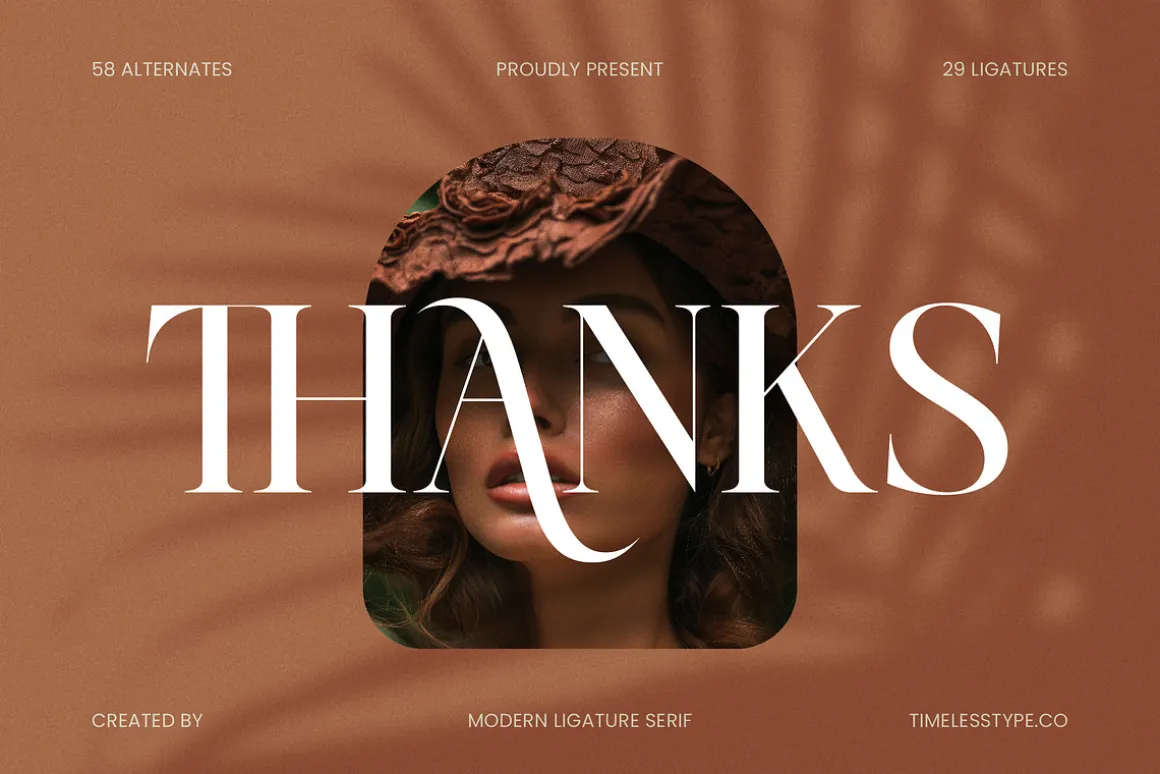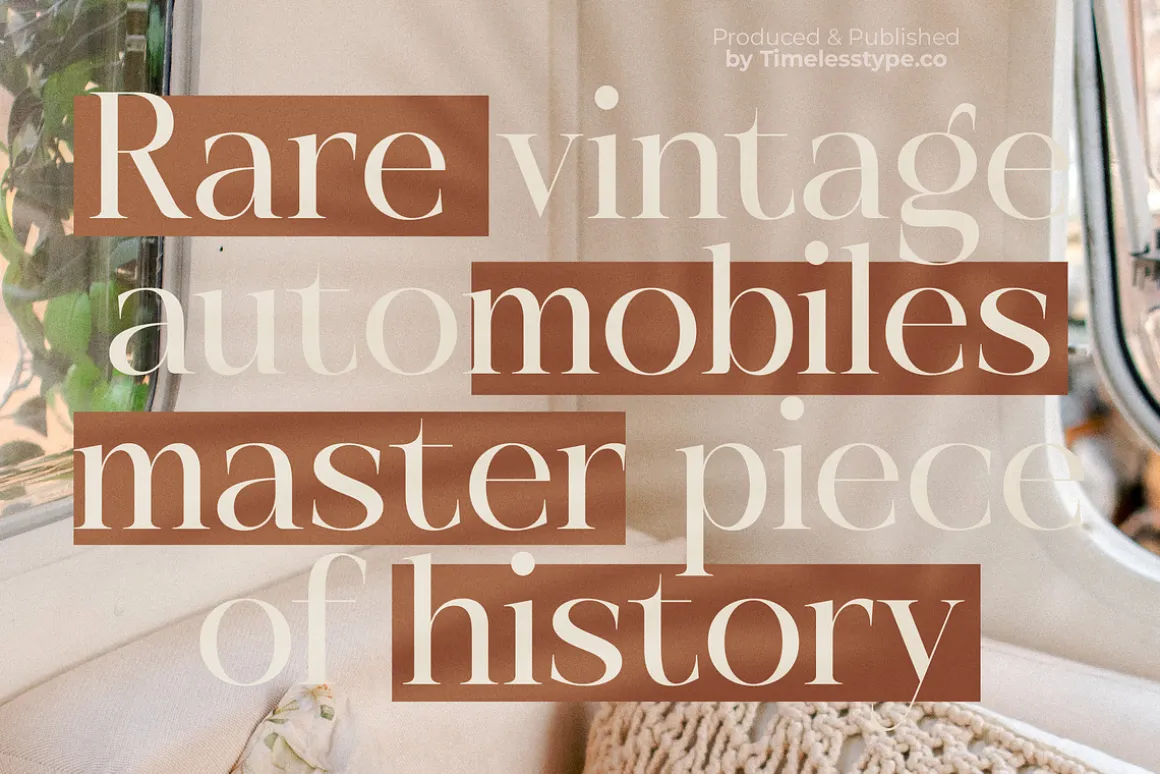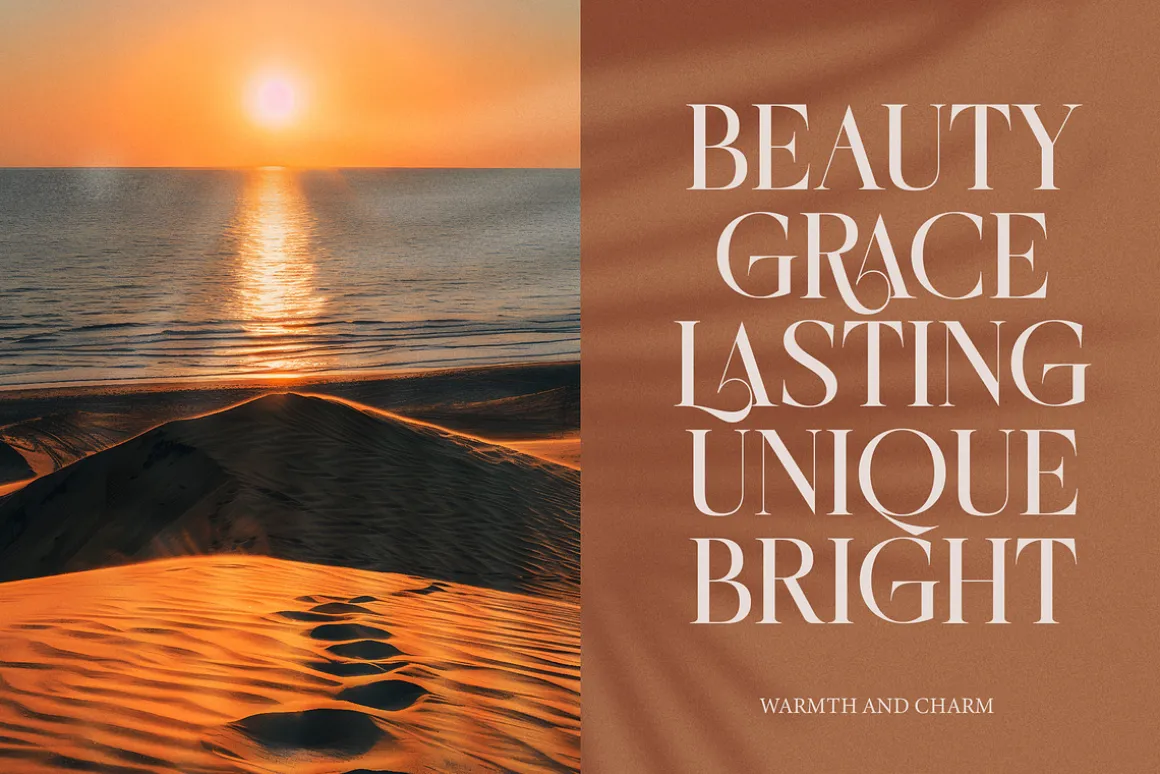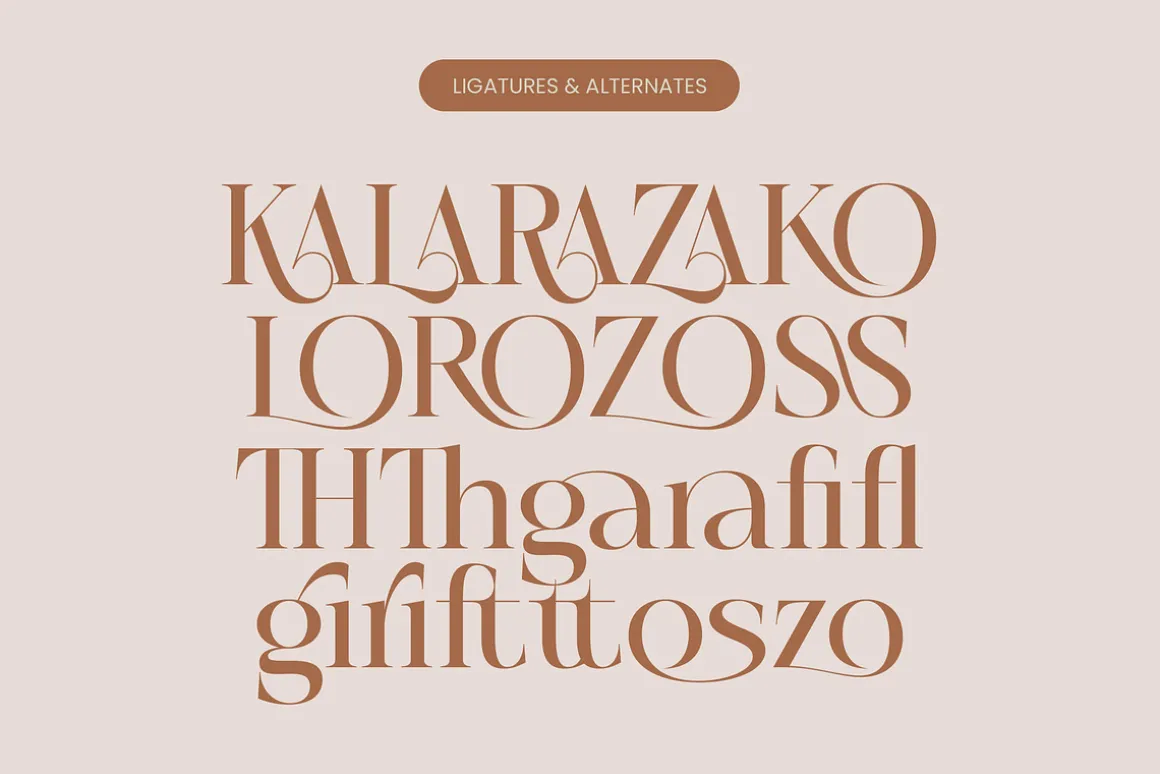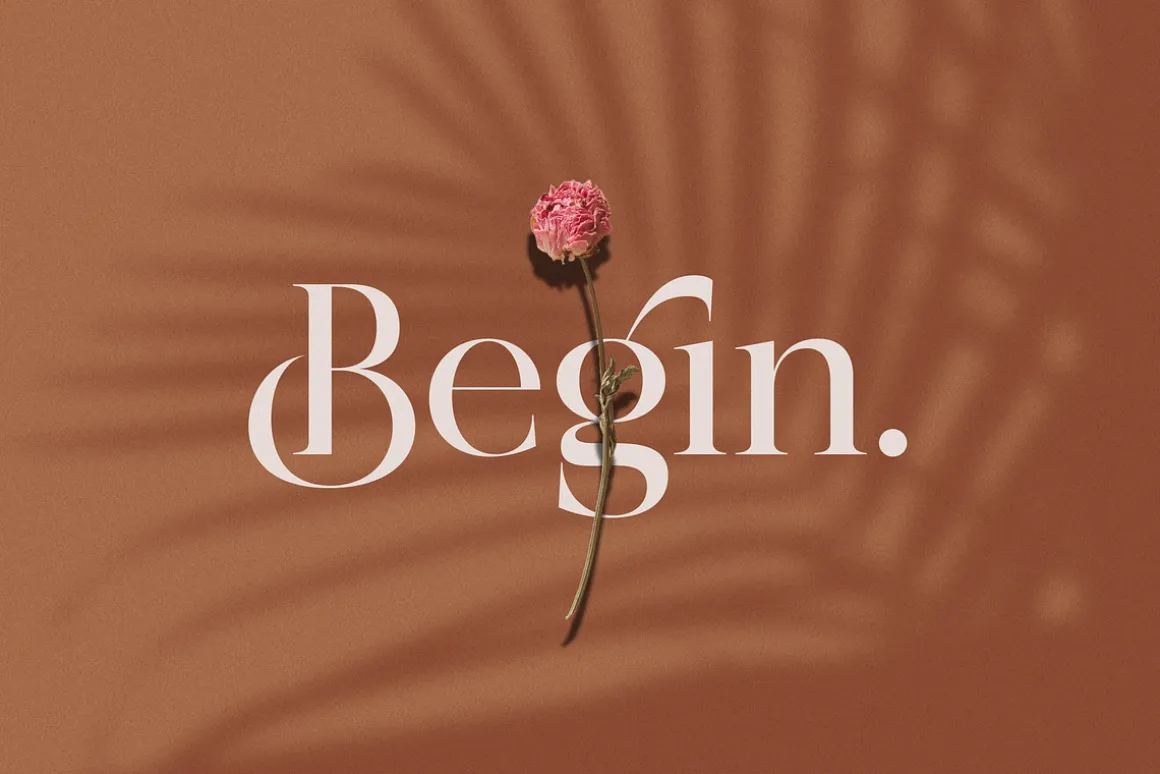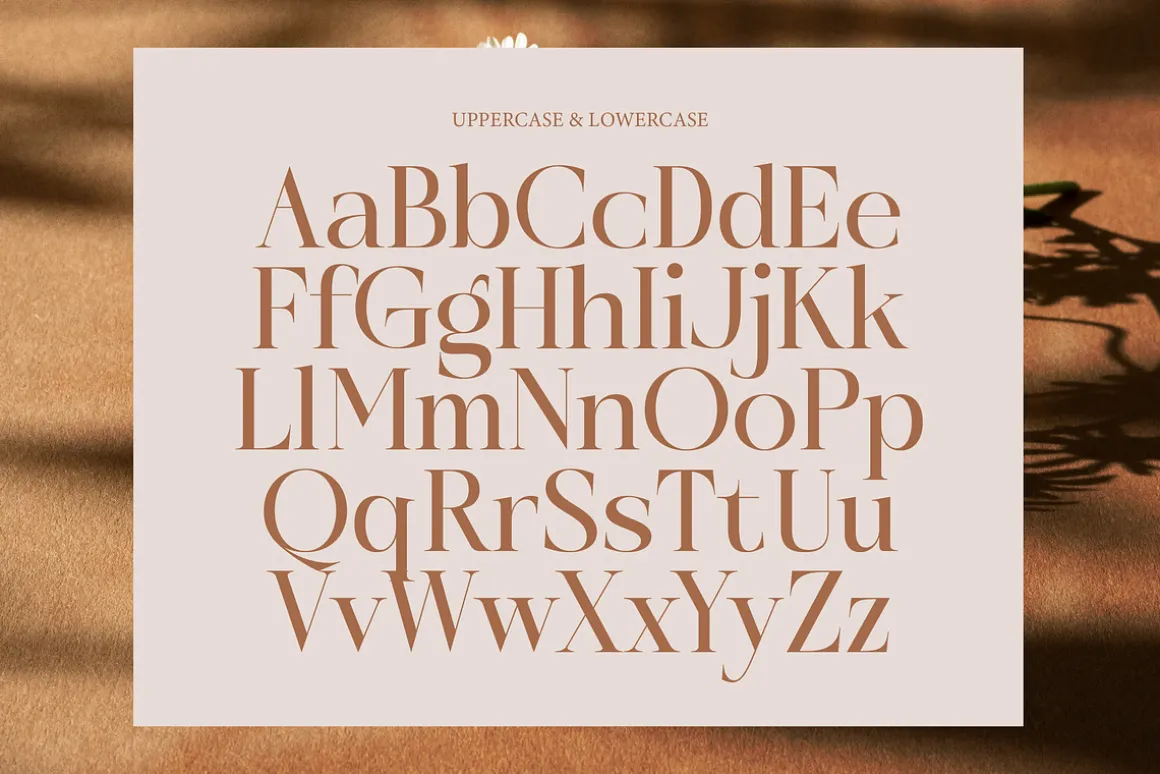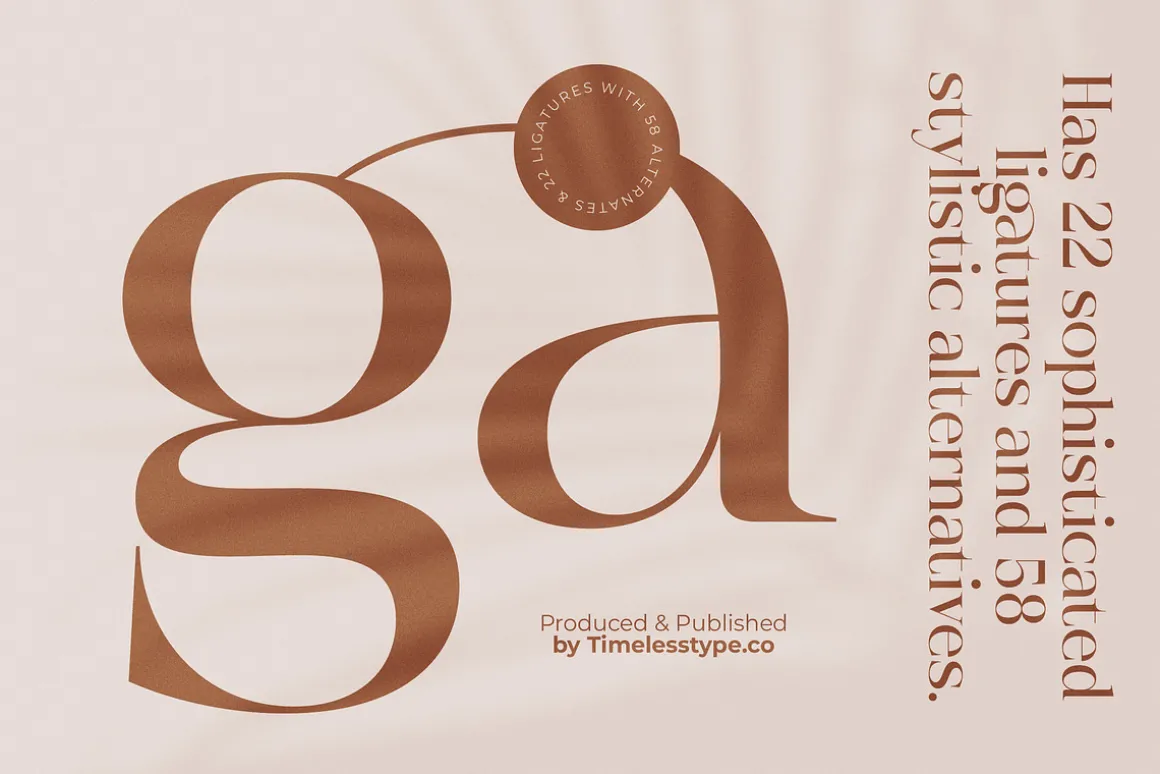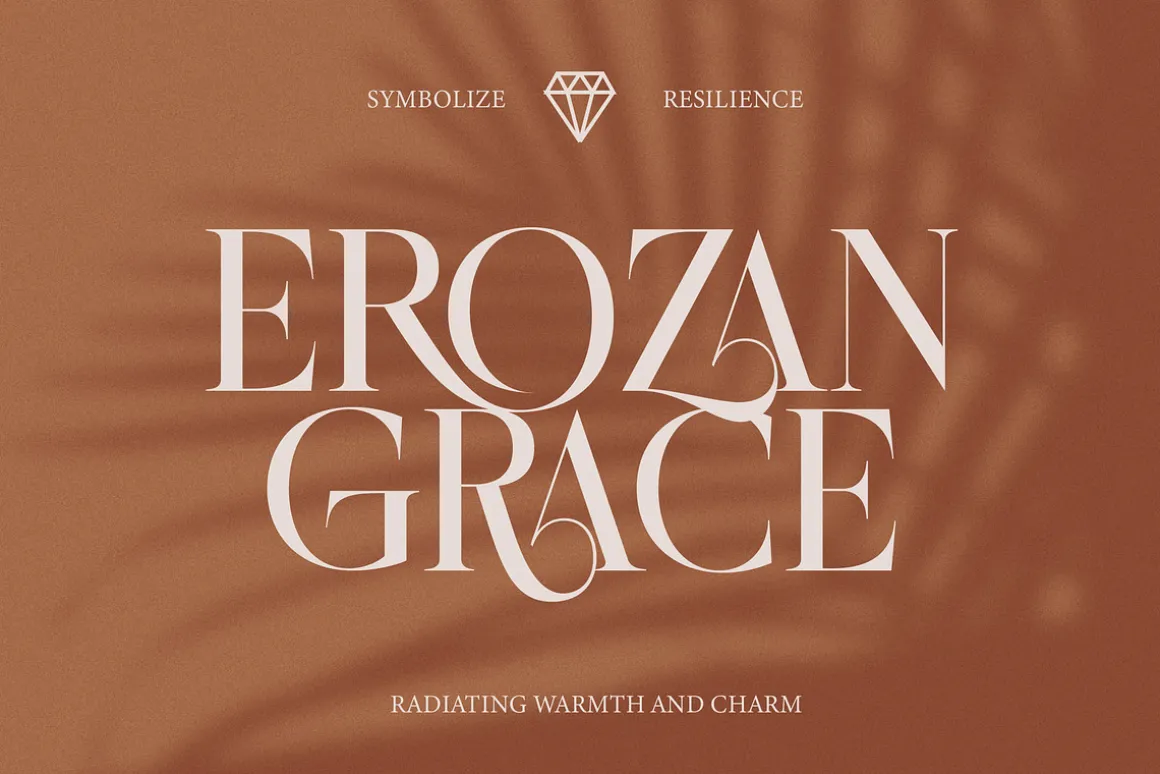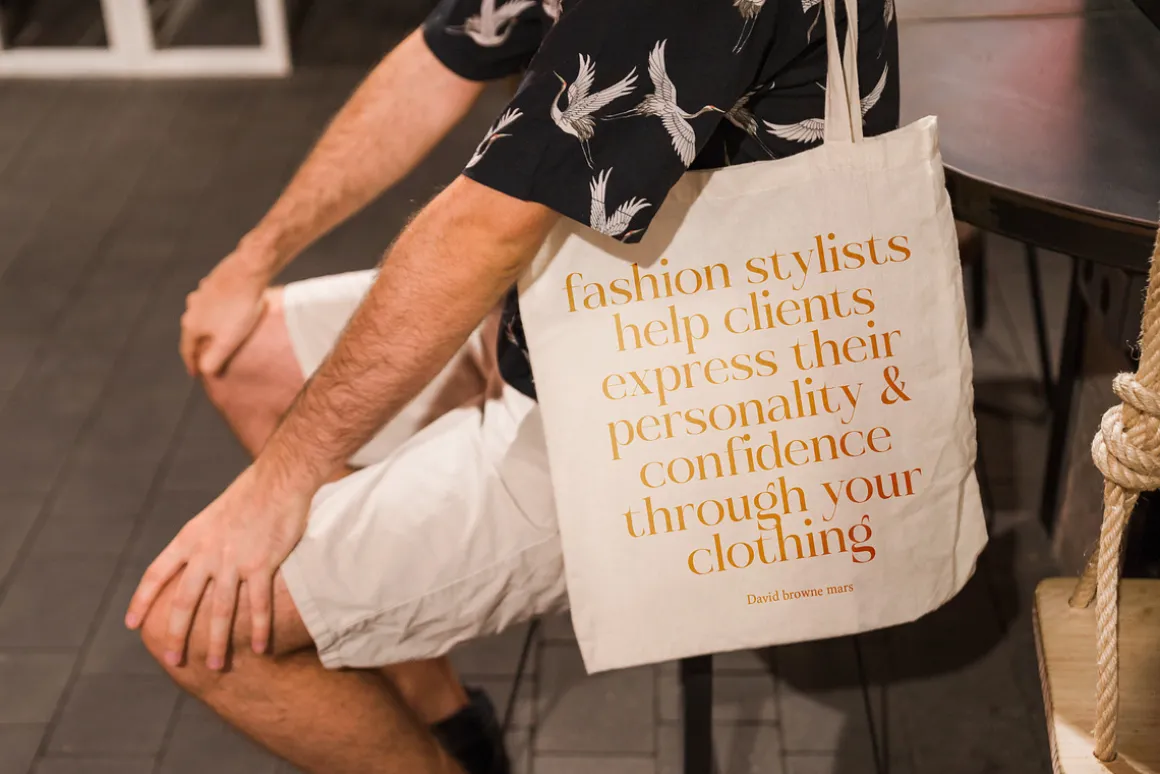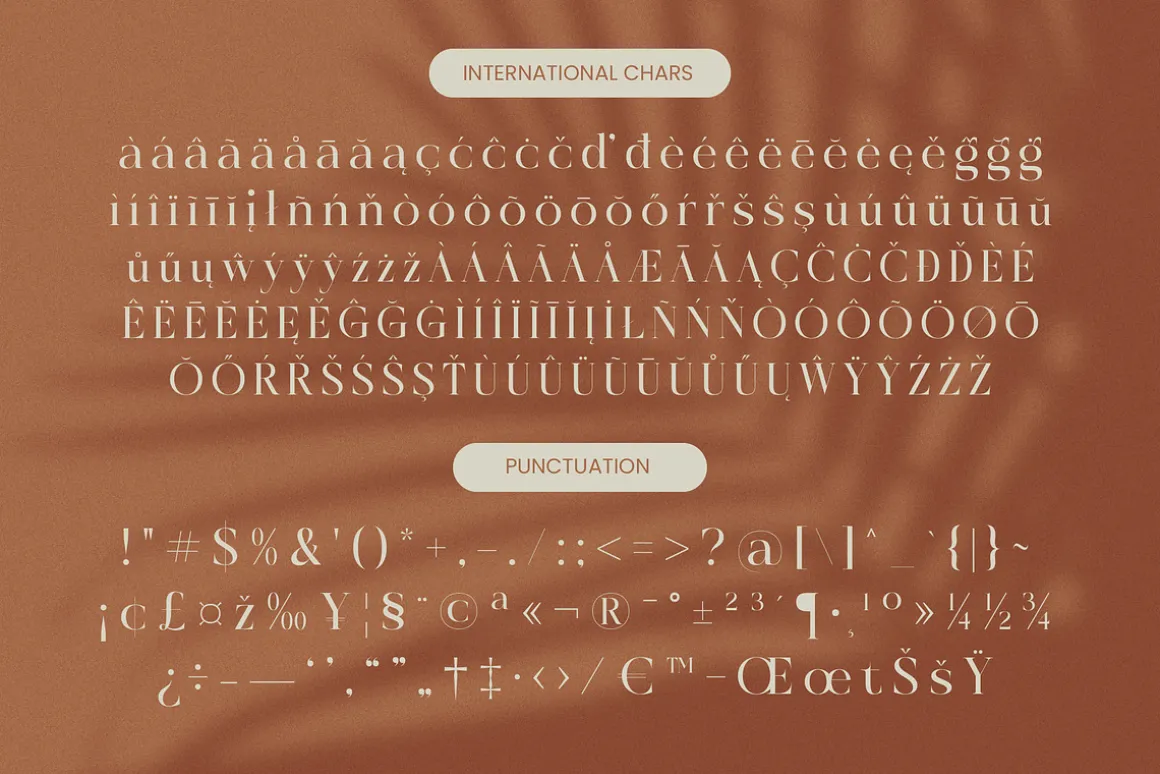
Elevate your creative vision with the timeless elegance of Rosse Merona, a typeface designed to infuse every project with an air of sophisticated grace. This masterfully crafted font captures the essence of high-end aesthetics, ensuring your designs stand out with unparalleled poise and professional polish.
Drawing inspiration from the interplay of light and shadow in a Mediterranean villa, this font evokes a sense of sun-drenched luxury and effortless chic. It reflects a world where classic Roman proportions meet the fluid movement of contemporary art, creating a visual narrative that is both nostalgic and forward-thinking.
This modern serif display is defined by its striking high-contrast serif strokes, offering a luxury typography experience that commands attention in any environment. Every character is meticulously sculpted to provide a significant branding impact, making it the quintessential editorial font for those who refuse to settle for the ordinary.
As the modern serif trend continues to dominate the visual landscape, character-driven typography has become essential for cutting through the digital noise. Rosse Merona perfectly aligns with today’s shift toward editorial display fonts that prioritize distinct personality and artistic flair without sacrificing classic readability.
Versatility is at the heart of this typeface, making it an ideal choice for high-end logo design and comprehensive boutique branding systems. Whether you are working on a minimalist wedding invitation, a glossy editorial layout, premium product packaging, or a cutting-edge fashion campaign, this font delivers a flawless finish.
Beyond its stunning appearance, this font is packed with functional depth including 29 unique ligatures and 58 stylistic alternates to customize your unique look. The extensive set of swashes and full support for multilingual workflows and international characters ensure your message resonates beautifully across global borders.